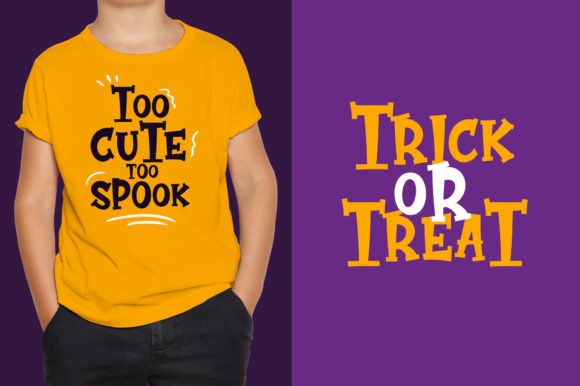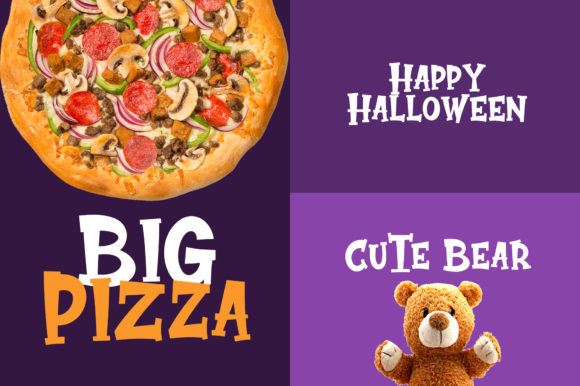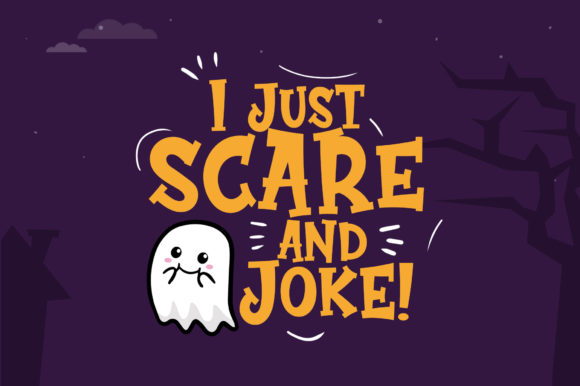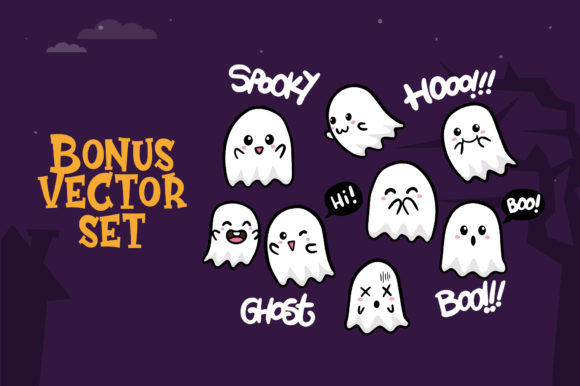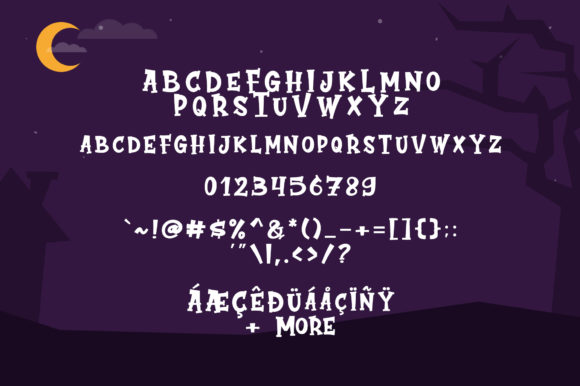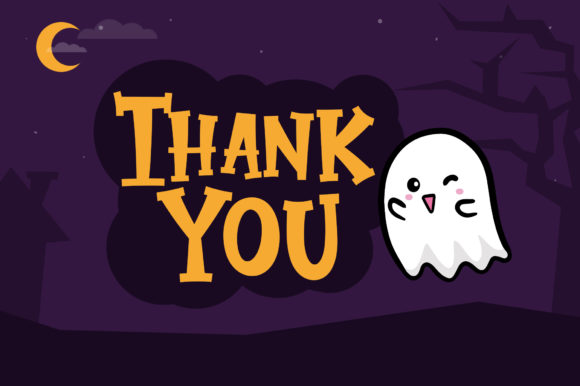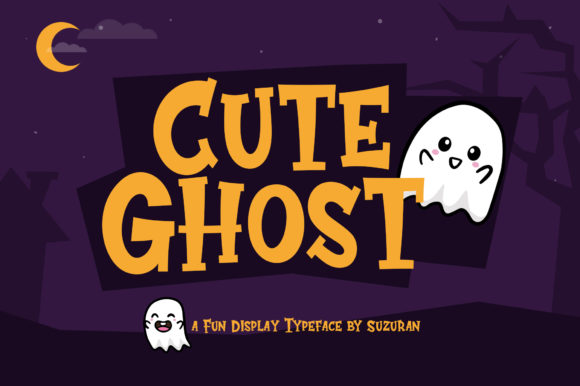
Cute Ghost Font: The Perfect Addition to Your Halloween Crafting Projects
Halloween is just around the corner, and with it comes the excitement of creating spooky and fun crafting projects. Whether you’re a designer, crafter, or DIY enthusiast, you know how important it is to have the right fonts to bring your ideas to life. That’s where the Cute Ghost font comes in – a whimsical yet scary font that’s perfect for adding a touch of Halloween magic to your projects.
What is Cute Ghost Font?
Cute Ghost font is a unique and playful font that’s specifically designed for Halloween-themed crafting projects. Its clever combination of cute and spooky elements makes it the perfect choice for designers and crafters who want to create eye-catching and festive projects. With its bold and quirky design, Cute Ghost font is sure to add a touch of personality to any project.
Why Choose Cute Ghost Font?
So, why choose Cute Ghost font for your Halloween crafting projects? Here are just a few reasons:
• Whimsical yet scary: Cute Ghost font strikes the perfect balance between whimsy and scariness, making it ideal for Halloween projects that need to be both fun and spooky.
• Versatile: This font can be used for a wide range of crafting projects, from party invitations and decorations to DIY signs and gift tags.
• Easy to use: Cute Ghost font is easy to read and use, making it perfect for designers and crafters of all skill levels.
• Unique: With its bold and quirky design, Cute Ghost font is sure to stand out from more traditional Halloween fonts.
How to Use Cute Ghost Font in Your Crafting Projects
Using Cute Ghost font in your crafting projects is easy. Here are a few ideas to get you started:
• Party invitations: Create spooky yet fun party invitations that will set the tone for your Halloween party.
• DIY decorations: Use Cute Ghost font to create festive decorations, such as signs, banners, and garlands.
• Gift tags: Add a personal touch to your Halloween gifts with Cute Ghost font gift tags.
• T-Shirts and hoodies: Create spooky yet fun Halloween-themed apparel with Cute Ghost font.
Tips for Using Cute Ghost Font
Here are a few tips for using Cute Ghost font in your crafting projects:
• Experiment with colors: Cute Ghost font looks great in a range of colors, from traditional Halloween colors like orange and black to more bold and bright colors.
• Mix and match: Combine Cute Ghost font with other fonts and graphics to create a unique and eye-catching design.
• Keep it simple: Don’t be afraid to keep your design simple and let Cute Ghost font be the star of the show.